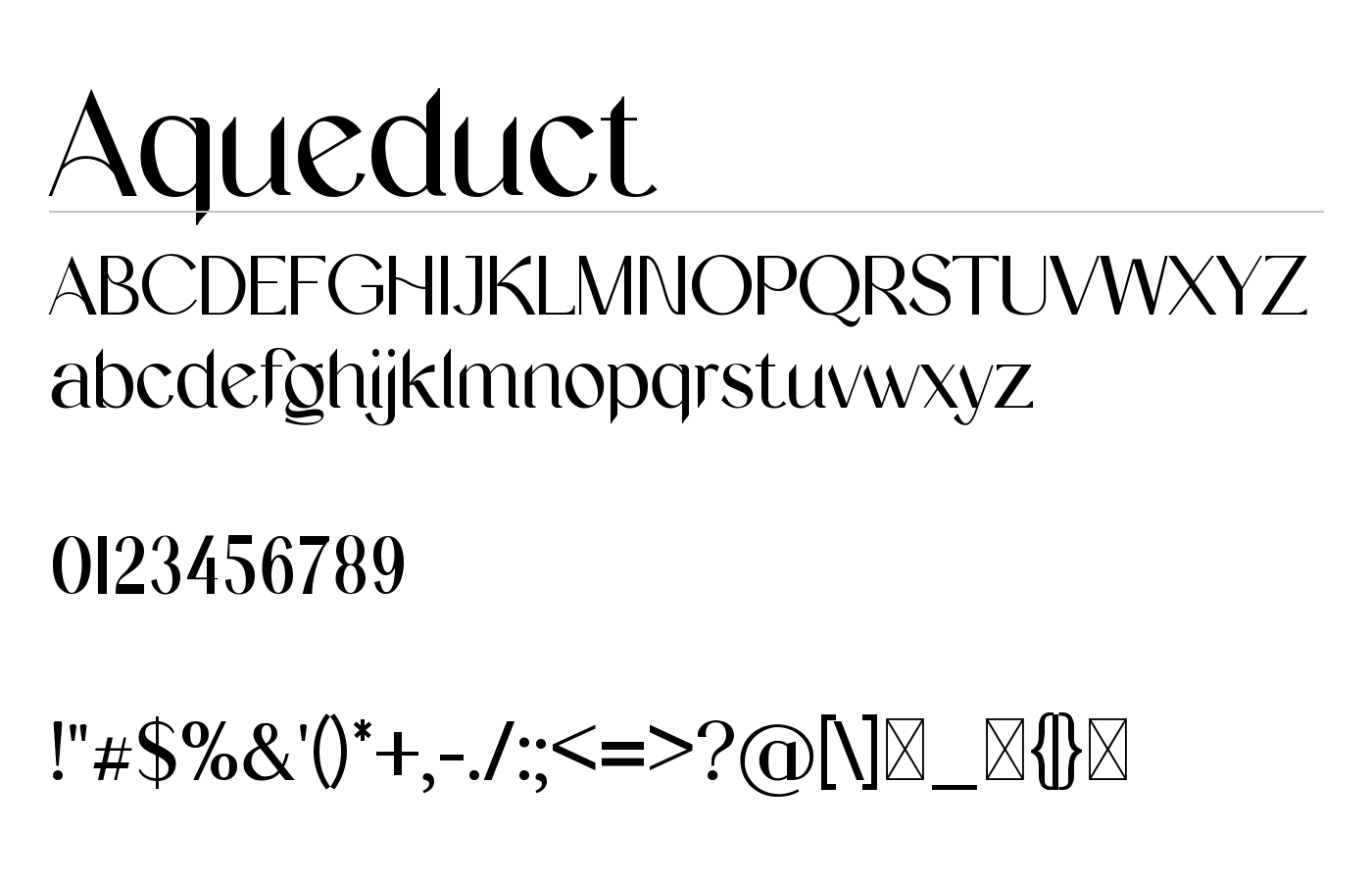
Aqueduct is a modern serif font that combines elegant thin strokes with sharp, angular details, giving it a sophisticated and contemporary feel. Its narrow width and high contrast between thick and thin lines make it ideal for upscale branding, editorial headlines, and stylish packaging where a refined yet distinctive look is desired. This font’s unique letterforms blend classic serif qualities with a fresh, artistic twist, perfect for fashion, luxury, and creative design projects.
Aqueduct Font
About Aqueduct Font